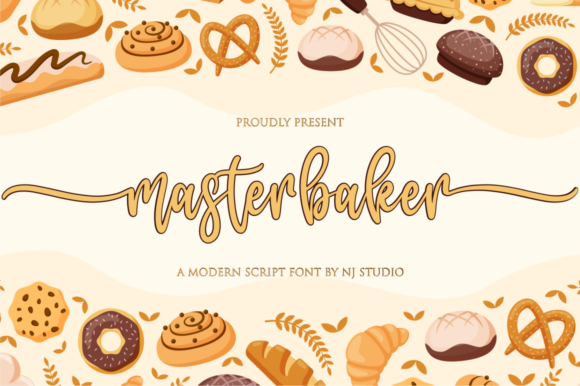
Unveil the Masterbaker Script Font – A Stroke of Handcrafted Elegance for Your Creative Projects
Immerse yourself in the world of Masterbaker, a captivating handcrafted font that breathes life into your designs. With its enchanting script style, this font is a true masterpiece, meticulously crafted to evoke a sense of timeless elegance and personal touch.
Step into a realm of endless creative possibilities, where Masterbaker effortlessly adds a touch of magic to wedding invitations, thank-you cards, quotes, greeting cards, logos, business cards, and any other design yearning for a handwritten flair. Unleash your imagination and let Masterbaker transform your words into exquisite works of art.
Masterbaker is a treasure trove of versatility, seamlessly adapting to a myriad of design concepts. Its graceful curves and fluid strokes lend an air of sophistication to product labels, effortlessly enhancing their visual appeal and captivating the attention of discerning customers.
Crafted with meticulous care, Masterbaker is meticulously encoded with PUA (Private Use Area), granting you effortless access to all of its glyphs and swashes. Experience the freedom to effortlessly incorporate unique characters, intricate embellishments, and breathtaking flourishes into your designs, elevating them to new heights of artistry.
Don't settle for ordinary fonts that fail to ignite your creativity. Embrace the exceptional with Masterbaker, the font that breathes life into your designs. Its captivating script style, coupled with its boundless versatility and effortless accessibility, makes it the perfect choice for designers seeking to make a lasting impression.
Elevate your designs with Masterbaker, the font that transforms the mundane into the magnificent. Experience the joy of creating designs that resonate with your audience, leaving an indelible mark on their hearts and minds.